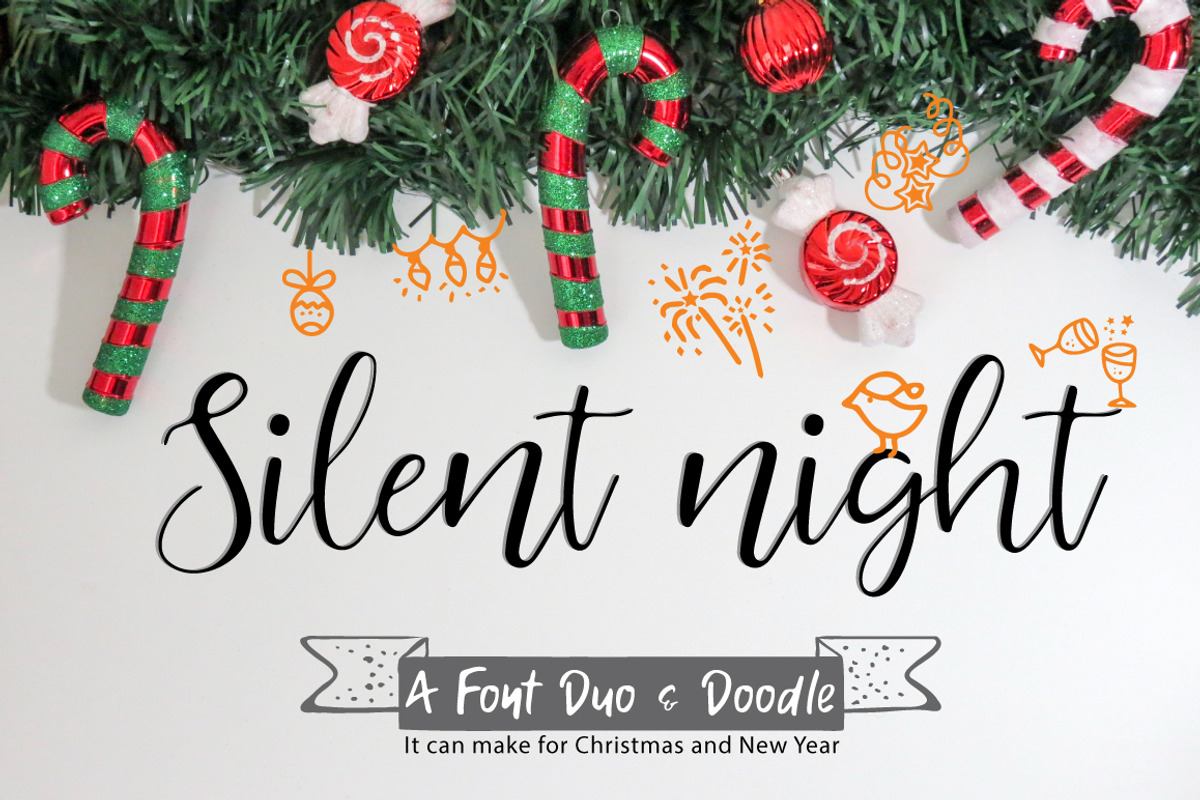
Silent Night | Font Duo Free Download
Silent Night | Font Duo Free Download is a beautifully crafted font pairing that combines an elegant script with a clean, modern sans-serif. This versatile duo is perfect for holiday-themed designs, greeting cards, invitations, branding, and any project that needs a touch of sophistication mixed with a playful charm. The script font adds a personal, handwritten feel, while the sans-serif offers balance and readability.
Using the Silent Night | Font Duo Free Download brings versatility and style to your projects. Whether you're designing Christmas cards, creating festive branding, or crafting holiday decorations, this font duo allows you to mix and match the fonts for various creative applications.